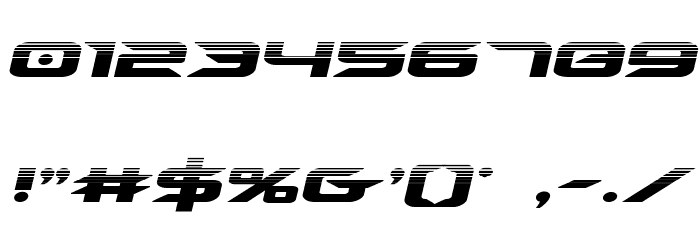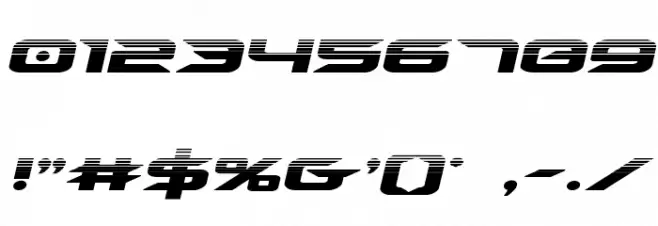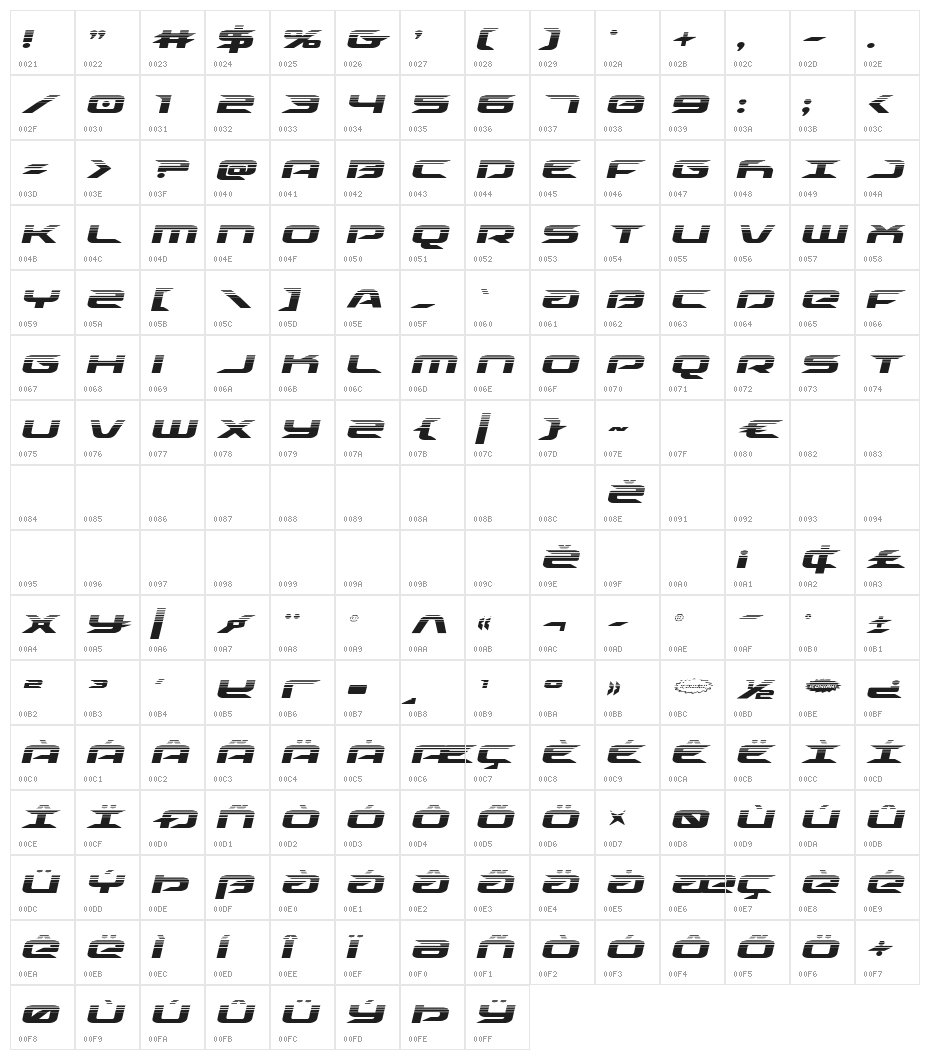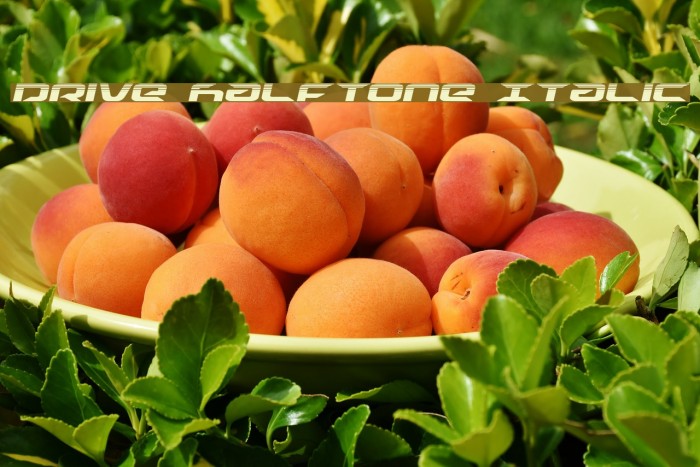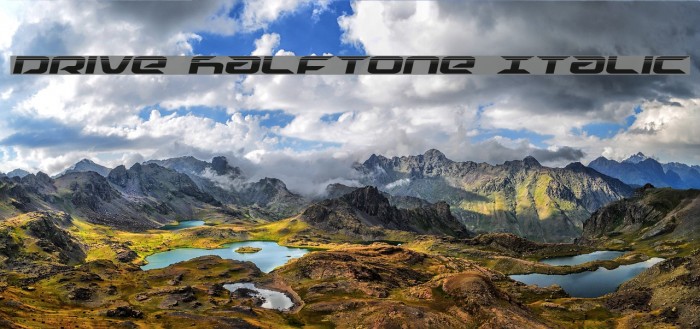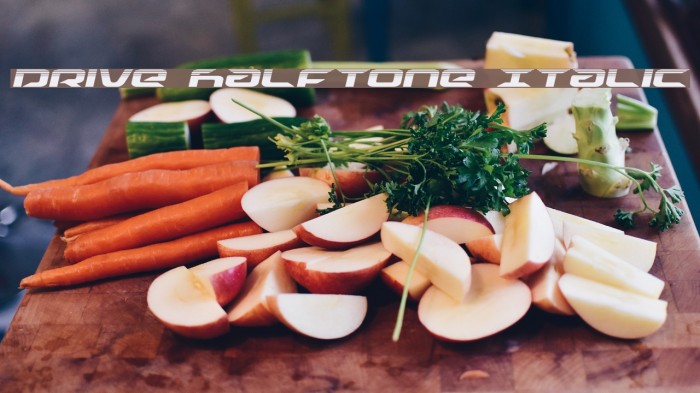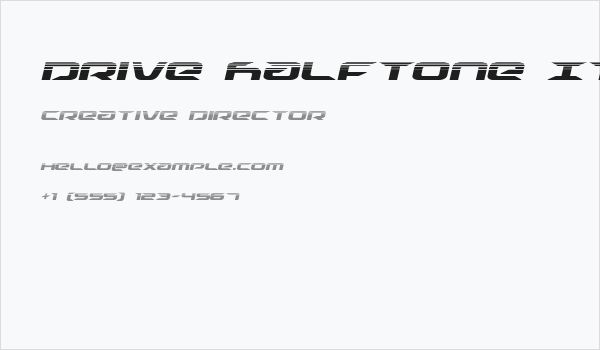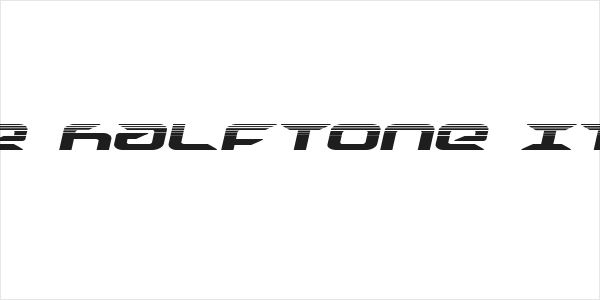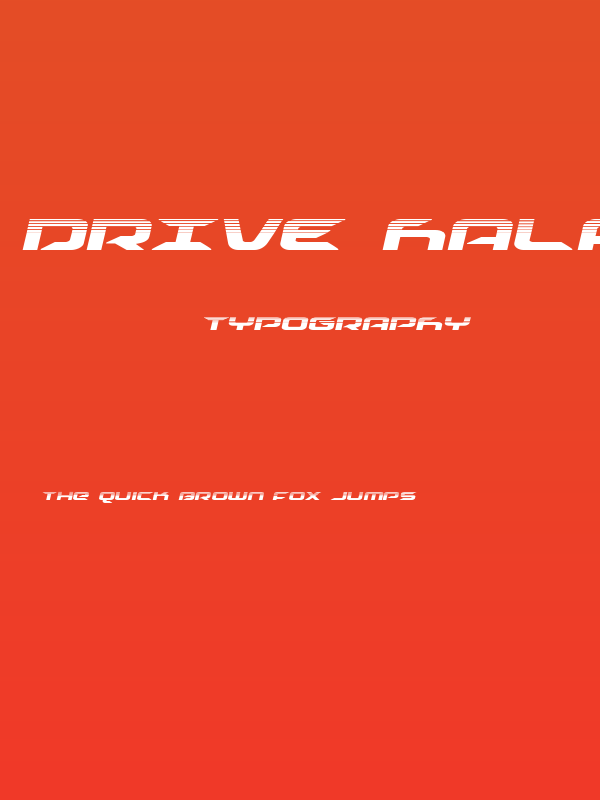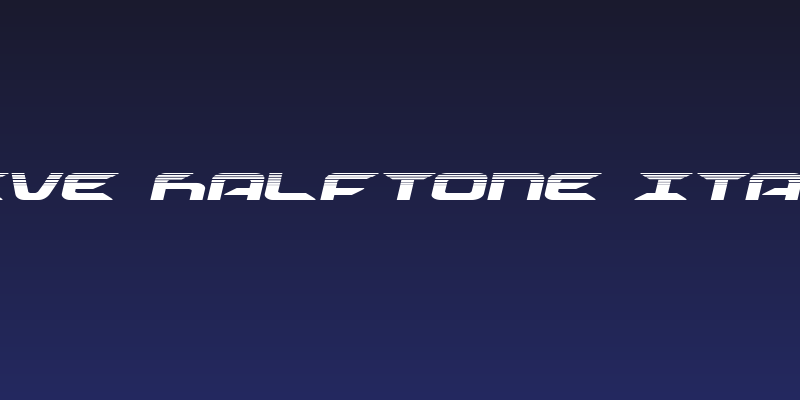
Drive Halftone Italic Font
Drive Halftone Italic Description
This dynamic and futuristic font features a halftone effect that gives it a sense of motion and speed. The italicized letters are bold and angular, with sharp edges and a distinct slant that enhances its modern appeal. The uppercase and lowercase letters maintain a consistent style, while the numerals and special characters integrate seamlessly with the overall design. The font's unique halftone pattern adds depth and texture, making it stand out in any project. Its bold presence and contemporary style make it suitable for a variety of creative applications.
| Proposed Projects | Ideal for sports branding, automotive designs, tech-related projects, and dynamic advertising campaigns. |